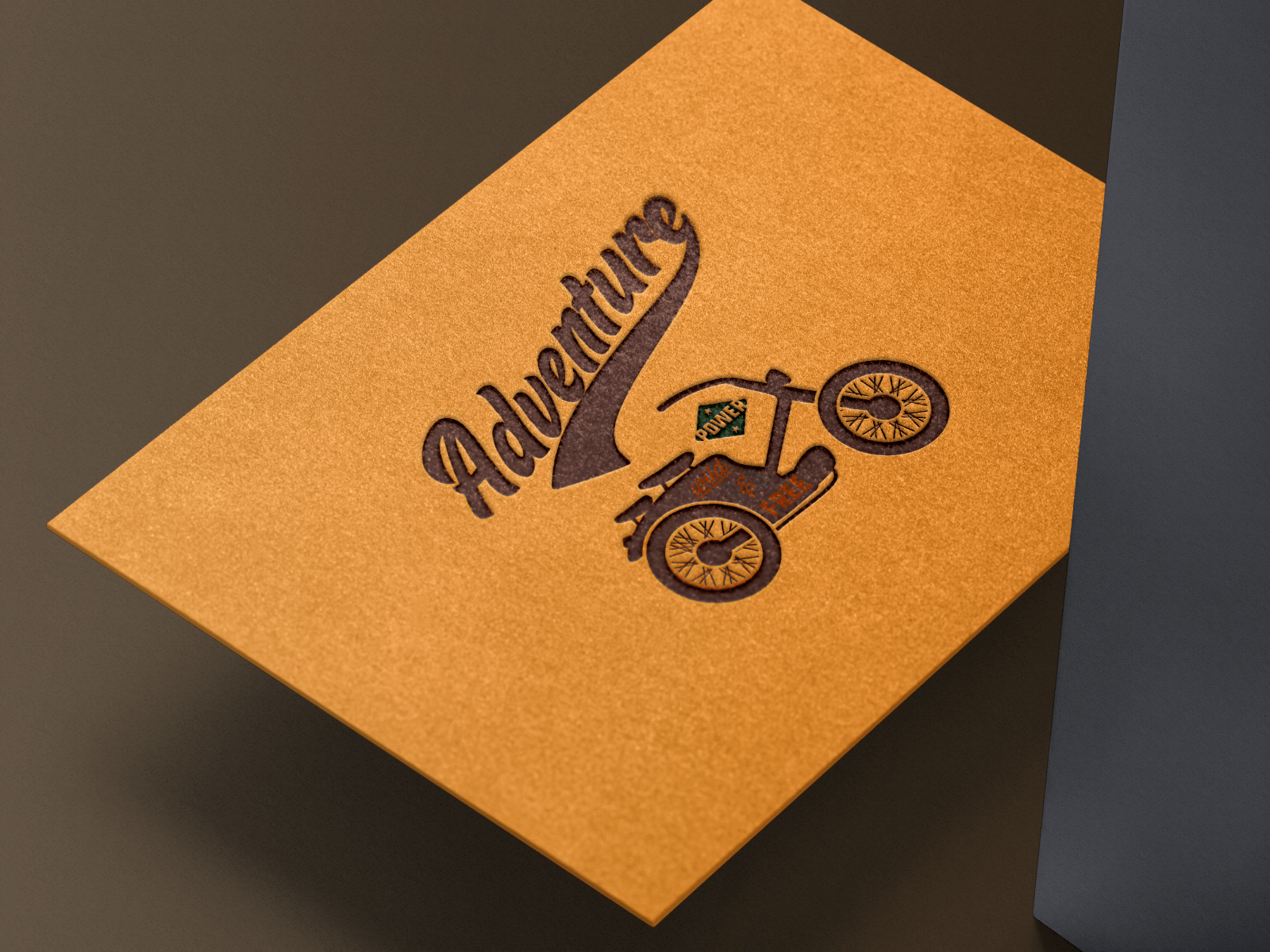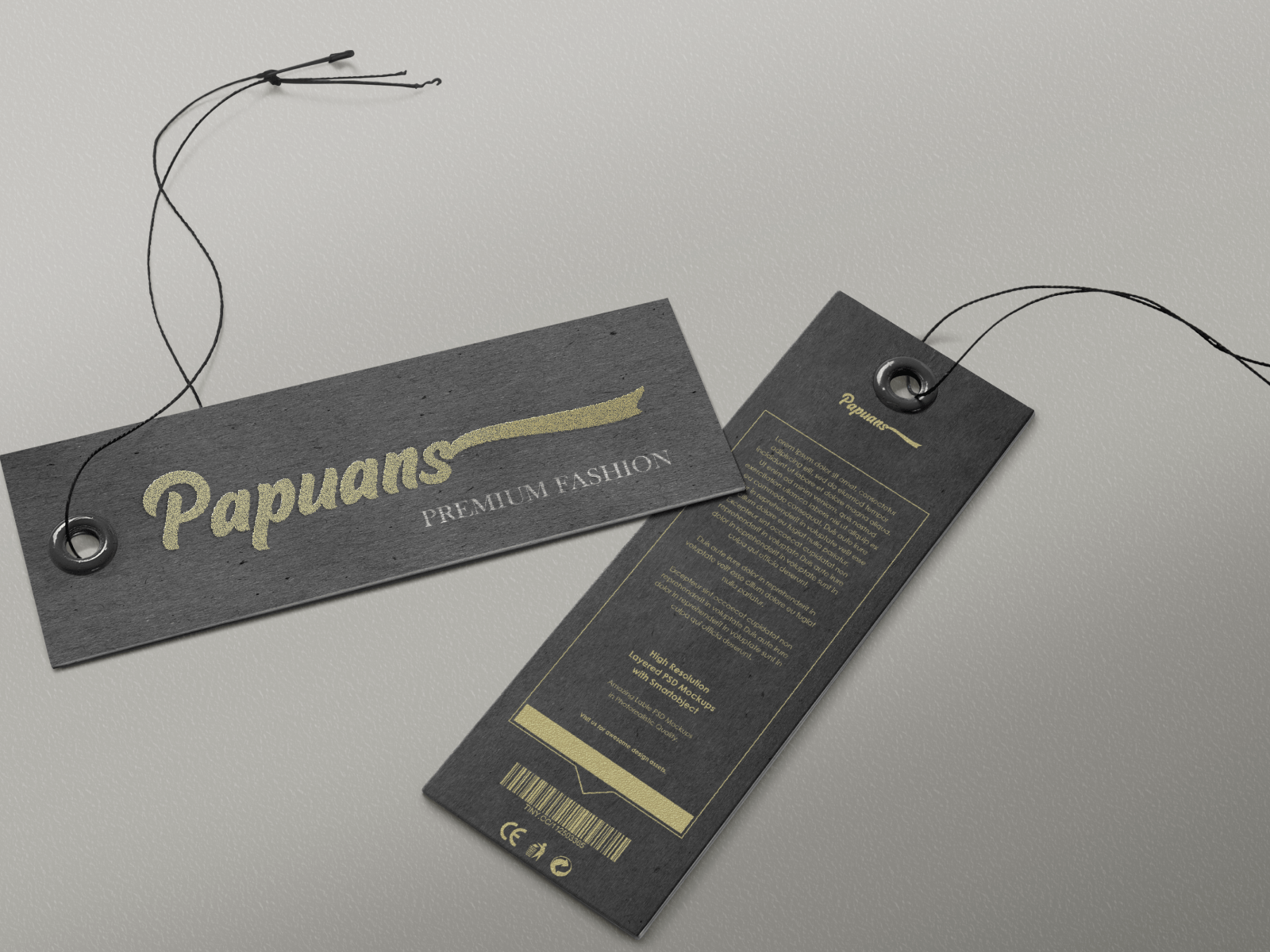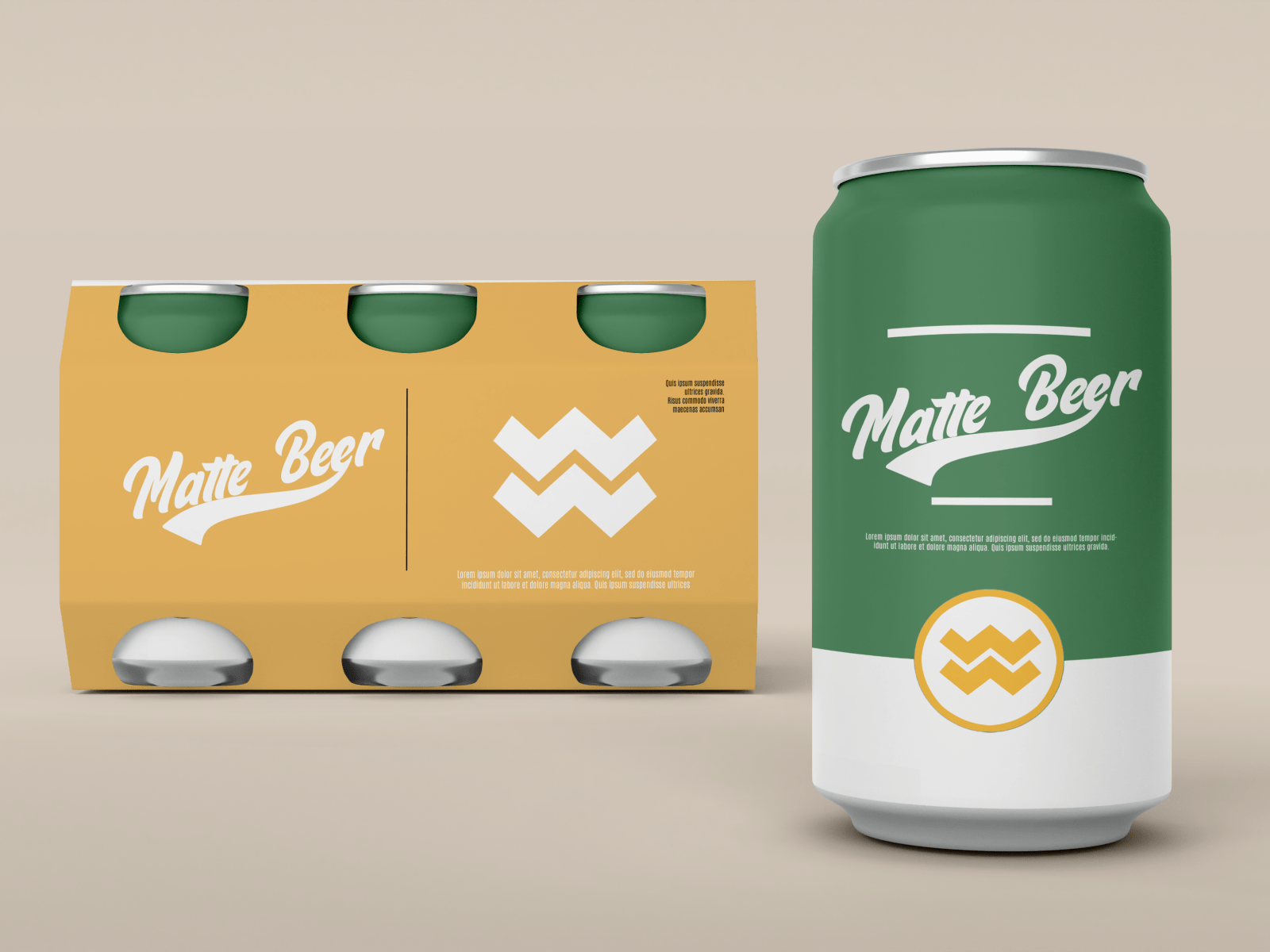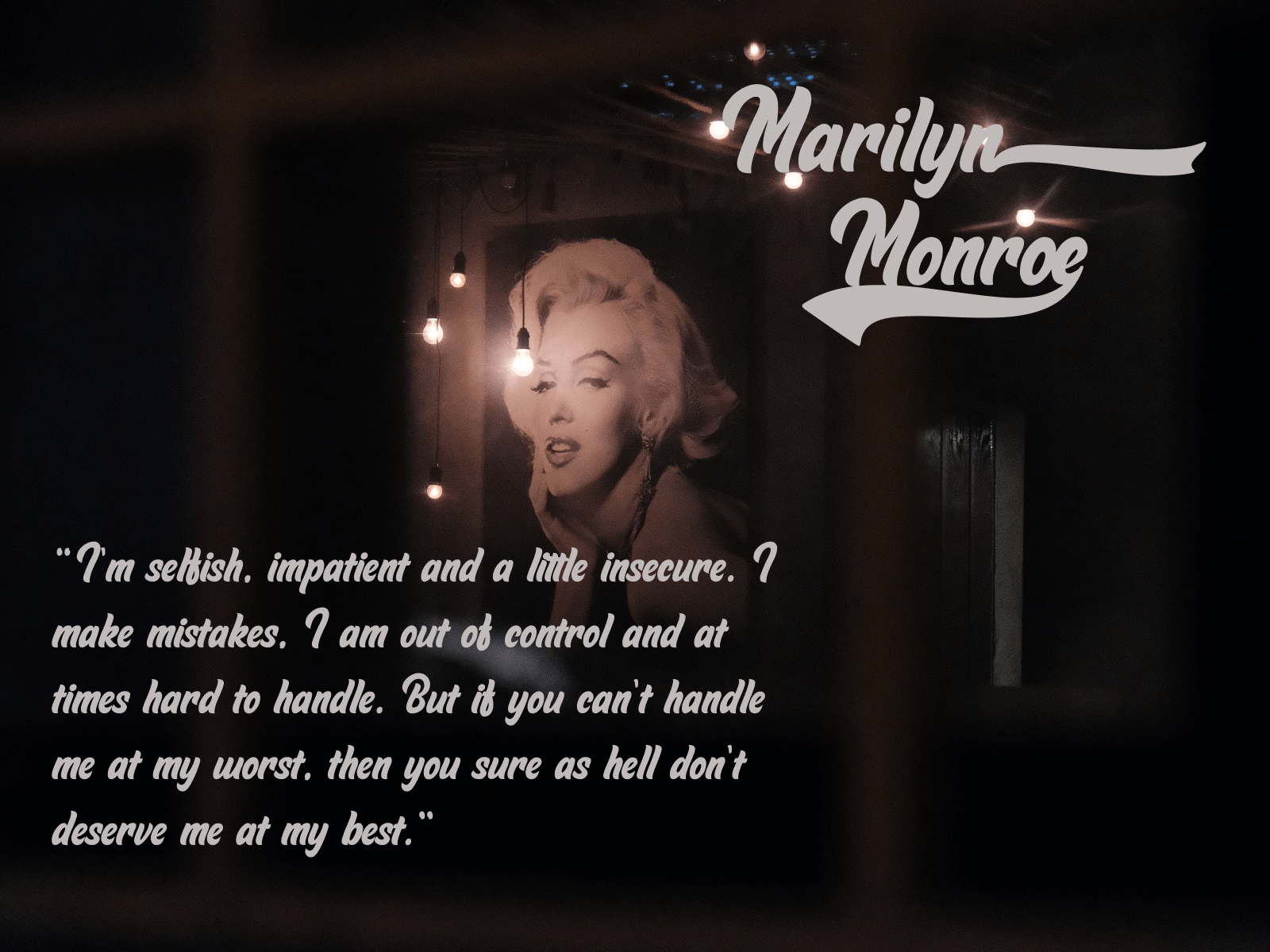
Valkazar Font
Valkazar Display Font
It’s a gorgeous and cursive display font, crafted to give your headlines and logotype projects a retro touch. This font reads as strong, confident, and dynamic and can add tons of nostalgic character to your designs. Valkazar is PUA encoded which means you can access all glyphs and swashes with ease!